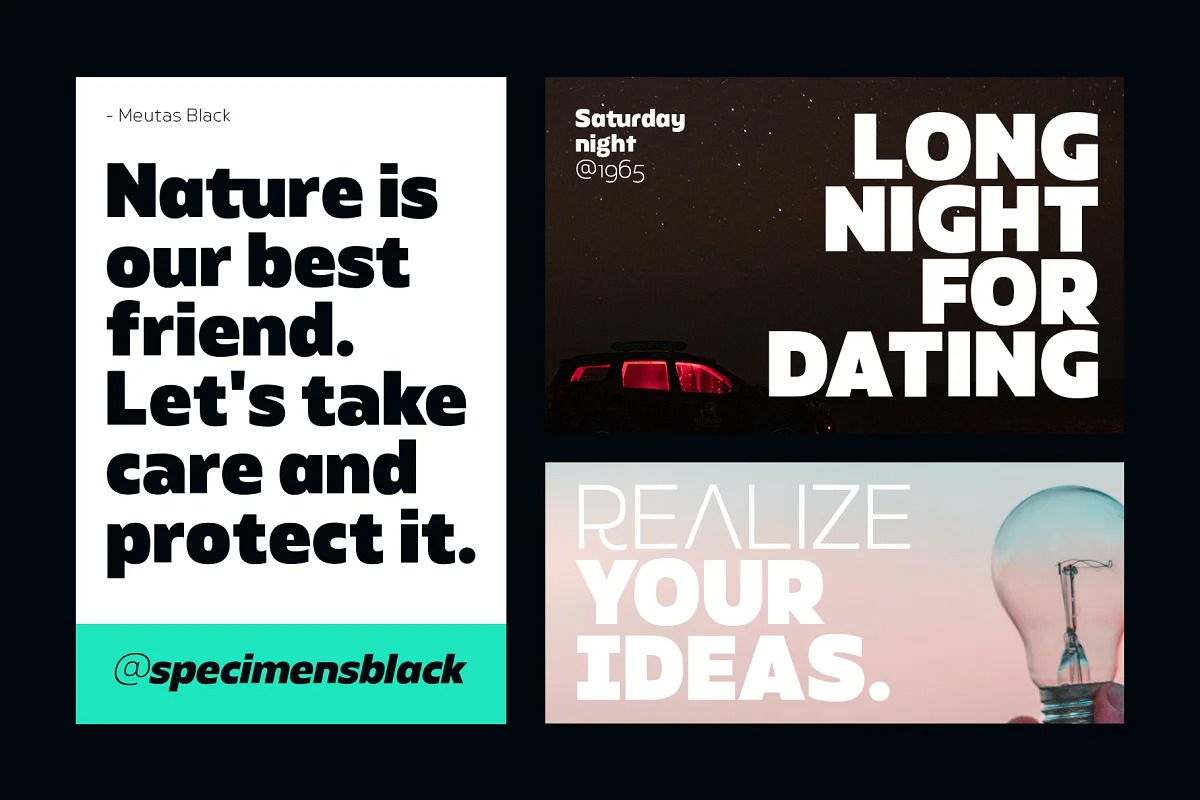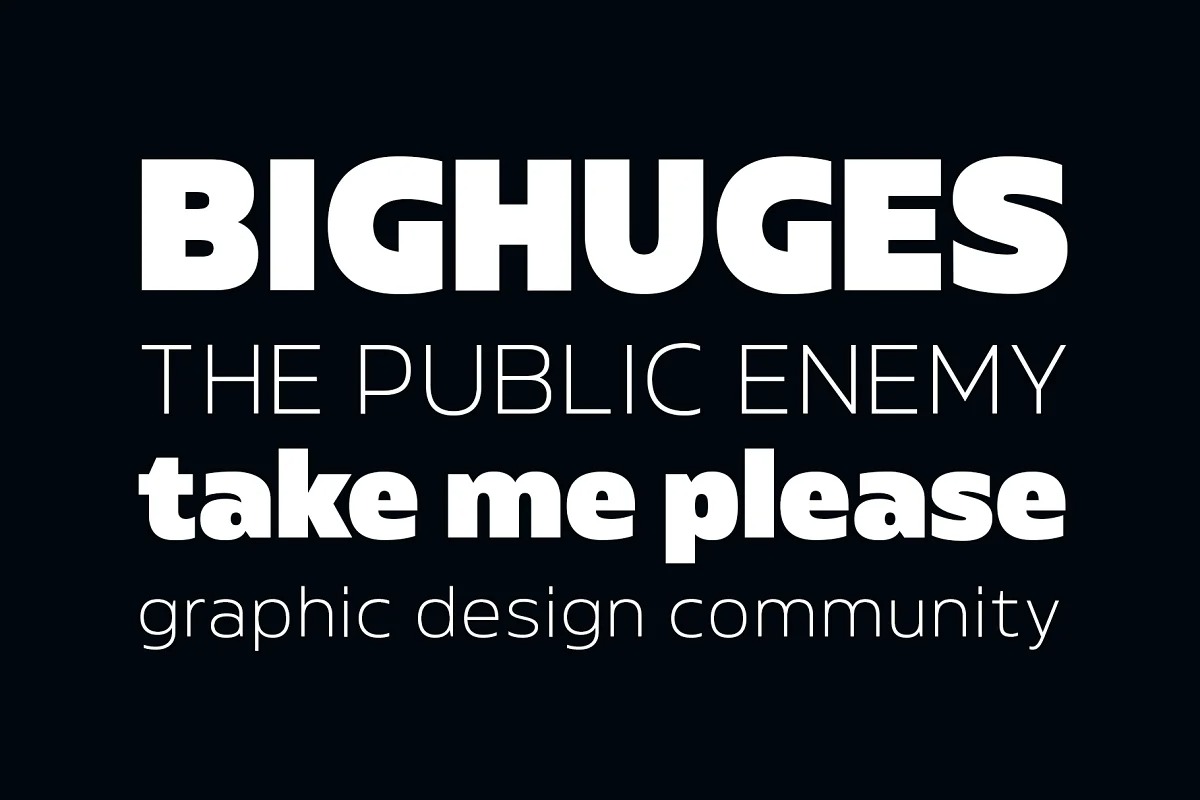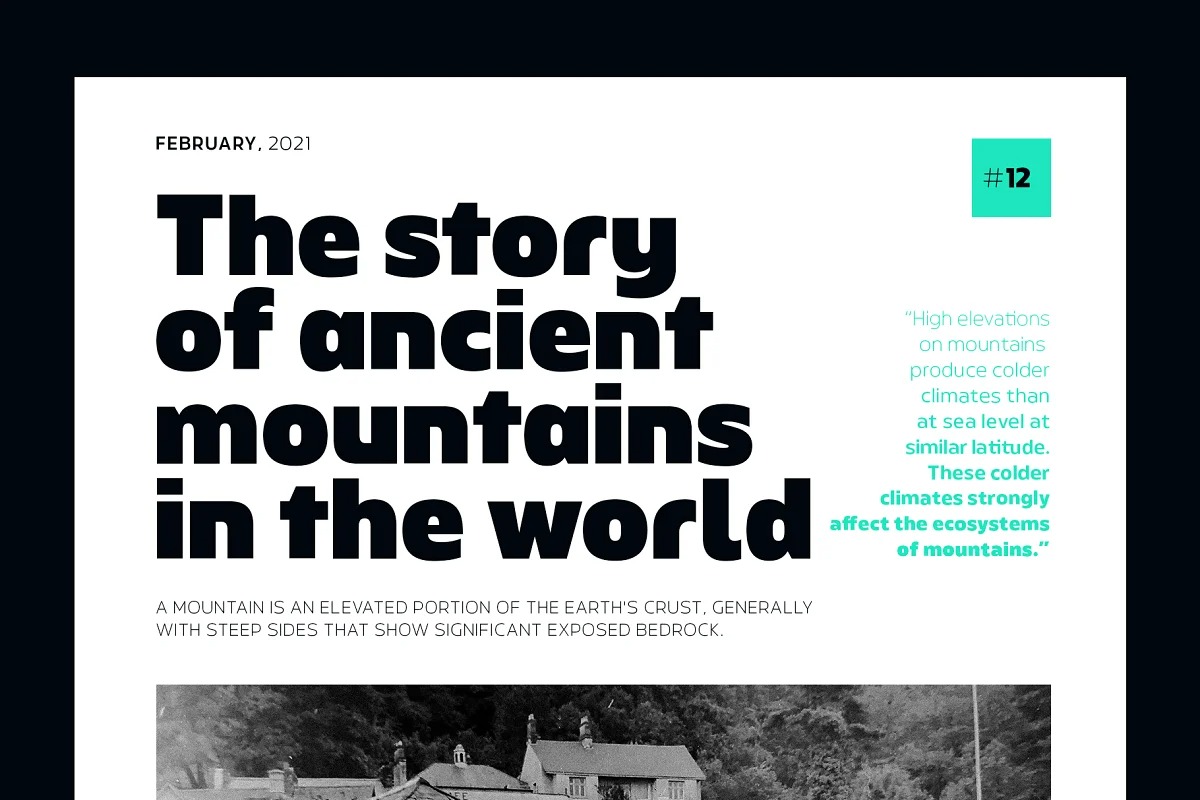
Meutas Sans Serif Font
This is a timeless sans-serif typeface family of 20 fonts, made with perfection in every aspect of design. Meutas is designed for display and body text. Maximizes thickness while maintaining balance in each form. This makes it especially suitable for all kinds of creative projects.
Meutas comes with 10 weights and a matching oblique, making it 20 styles. Some alternative glyphs will be an attractive choice. Makes every project you work on easier, and will certainly be awesome!